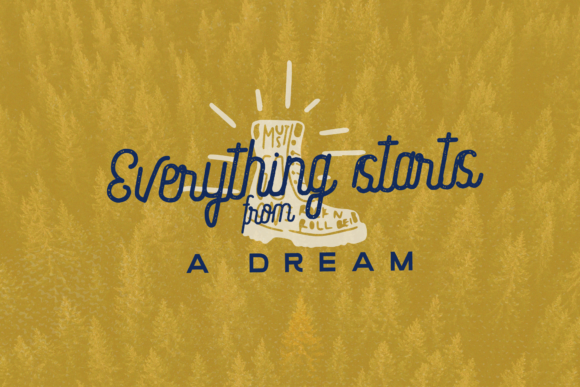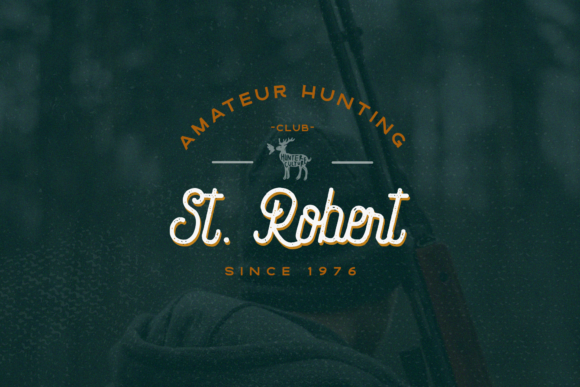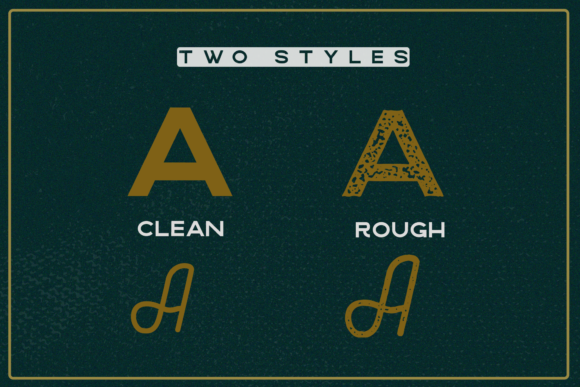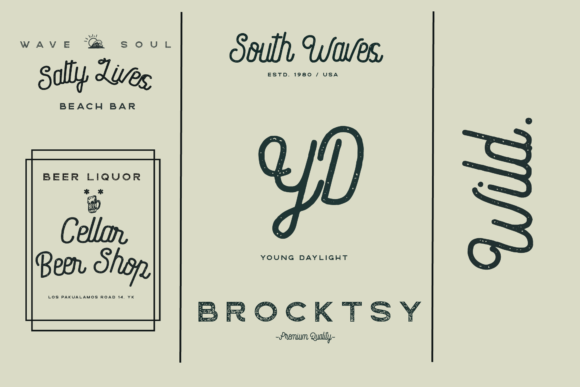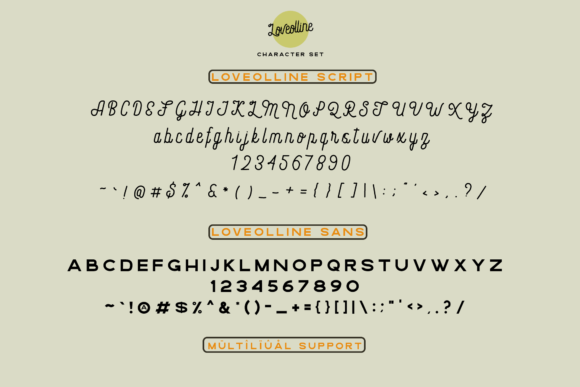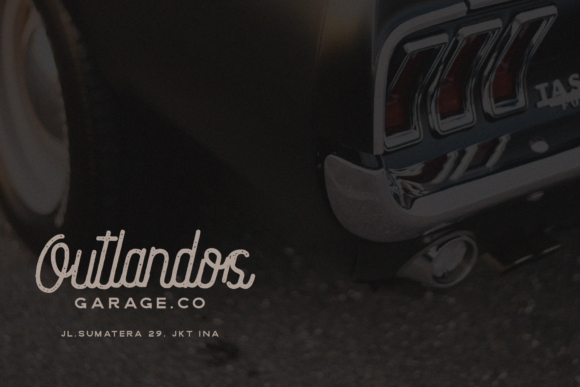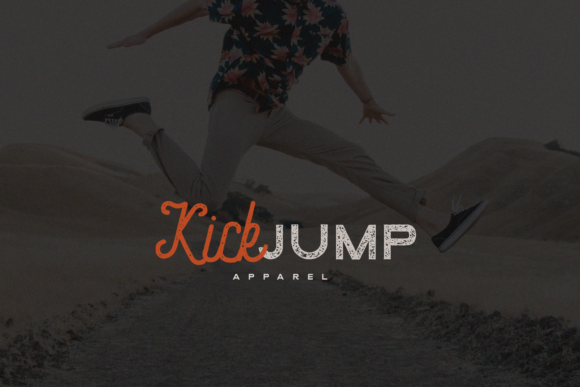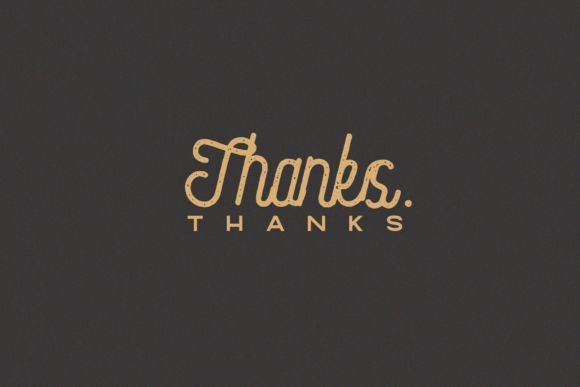
HomeScript FontsLoveolline Font Script Fonts Loveolline Font FacebookXPinterestWhatsApp Loveolline Font Poster 2 Loveolline Font Poster 3 Loveolline Font Poster 4 Loveolline Font Poster 5 Loveolline Font Poster 6 Loveolline Font Poster 7 Loveolline Font Poster 8 Loveolline Font Poster 9 About Loveolline Font Loveolline duo is a match made in heaven! Use them together to add a vintage and awesome look to your projects! DOWNLOAD ON CREATIVE FABRICAThis font is sold and delivered by Creative Fabrica. Font Canyon may earn a commission if you buy through this link. People also explored Wonderful Font Raflesia Font Aero Wolves Font Slightwell Font Catatan Harian Font Forest and Hills Font Bluelmin Benedict Font Blowthine Font Smile Emoji Font 272 0 TagsLoveolline Font Previous articleWinter Festival FontNext articleBubble Bobble Font LEAVE A REPLY Cancel reply Comment: Please enter your comment! Name:* Please enter your name here Email:* You have entered an incorrect email address! Please enter your email address here Website: Save my name, email, and website in this browser for the next time I comment. Personal Use Free The Most Beautiful Gift Personal Use Free Read more about this font Adriator Personal Use Free Read more about this font Jelly Fish Personal Use Free Read more about this font Wanita Cantik Personal Use Free Read more about this font BLOG How to Cut Any Font on Cricut: Convert a Font to SVG (Free) Turn any font into a clean SVG so it cuts crisp on Cricut - a quick 3-step workflow using a free font-to-SVG tool. Exploring Font Trends The 10 Best Handwriting Fonts to Add Personality to Your Designs Where to Buy American Fonts Online in 2024